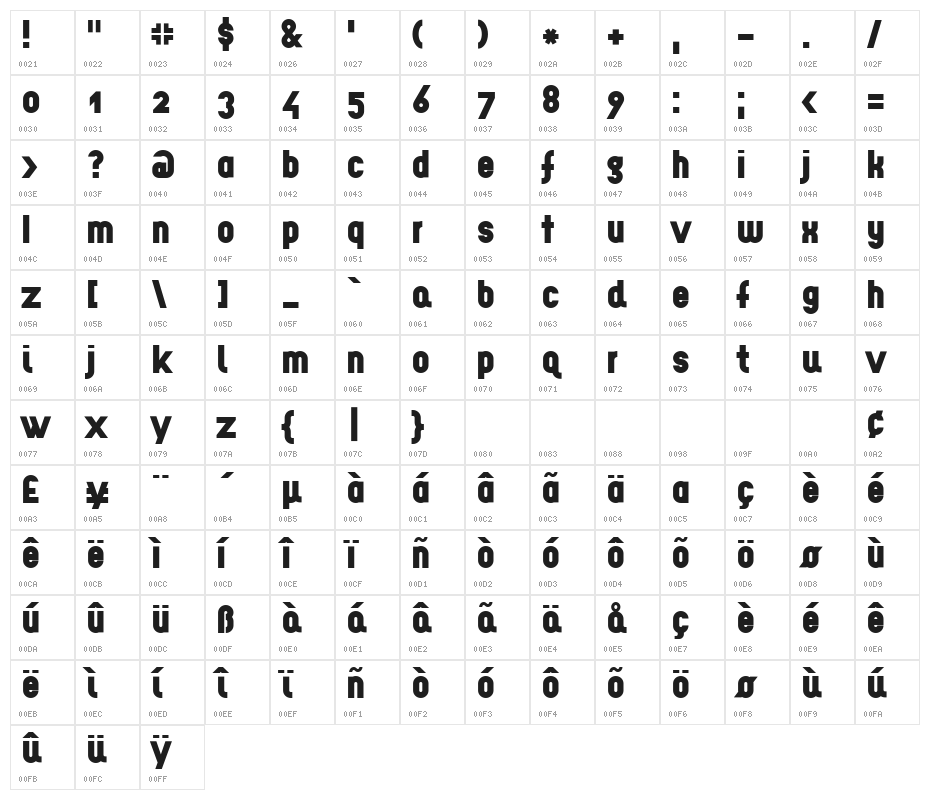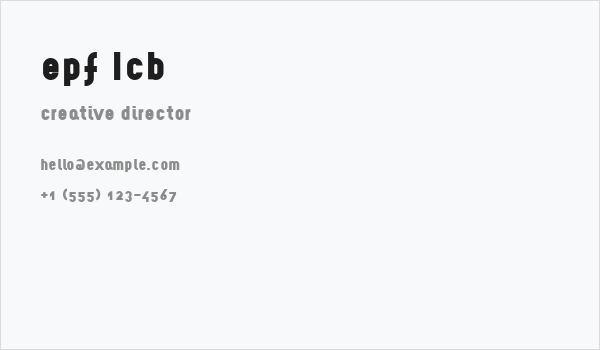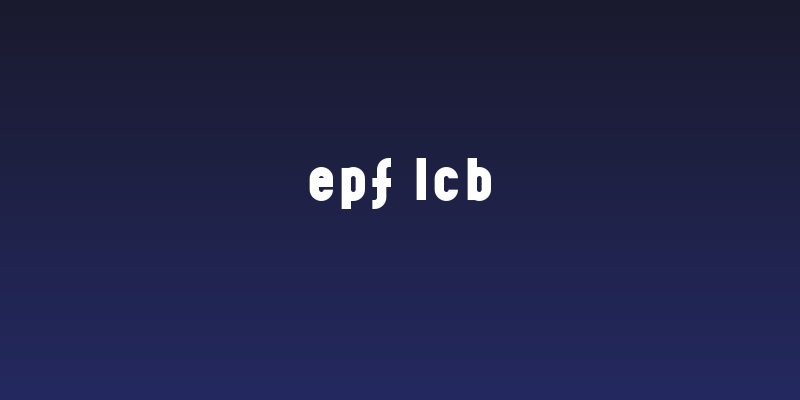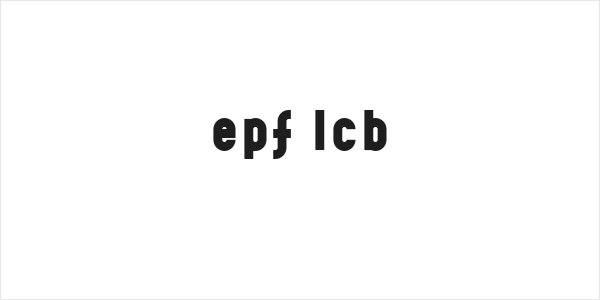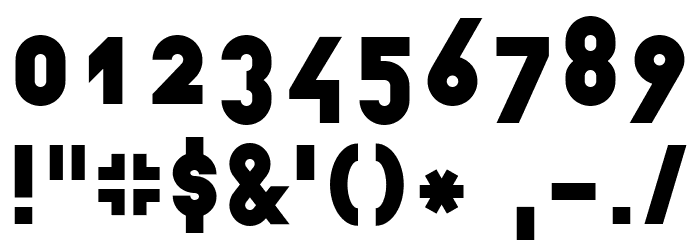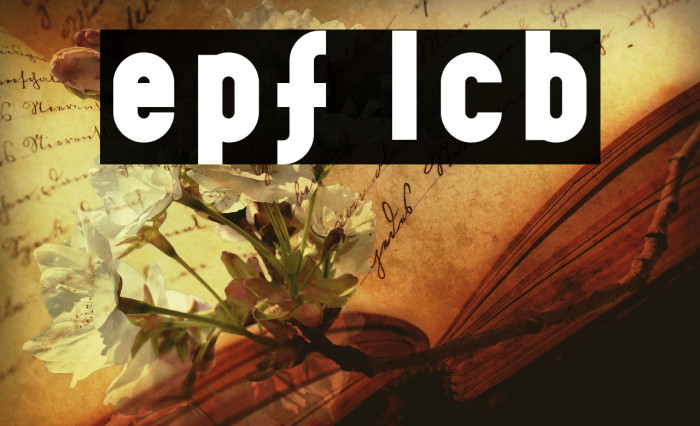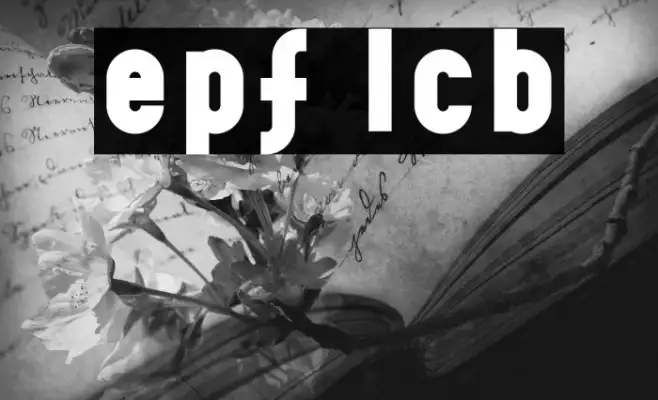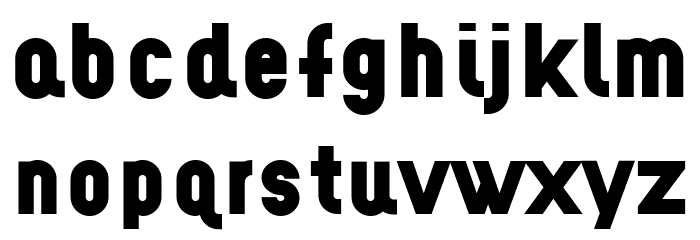
EPF LCB Font
This font features bold, geometric letterforms with a strong presence. The characters are uniformly thick, creating a robust and impactful appearance. The design is modern and clean, with a slight industrial feel. The uppercase and lowercase letters maintain a consistent style, with rounded edges that soften the overall look. The numerals and special characters are equally bold, ensuring readability and visual balance. This font is well-suited for projects that require a strong, attention-grabbing typeface.
| Proposed Projects | Ideal for branding, posters, headlines, and signage where a strong visual impact is needed. |